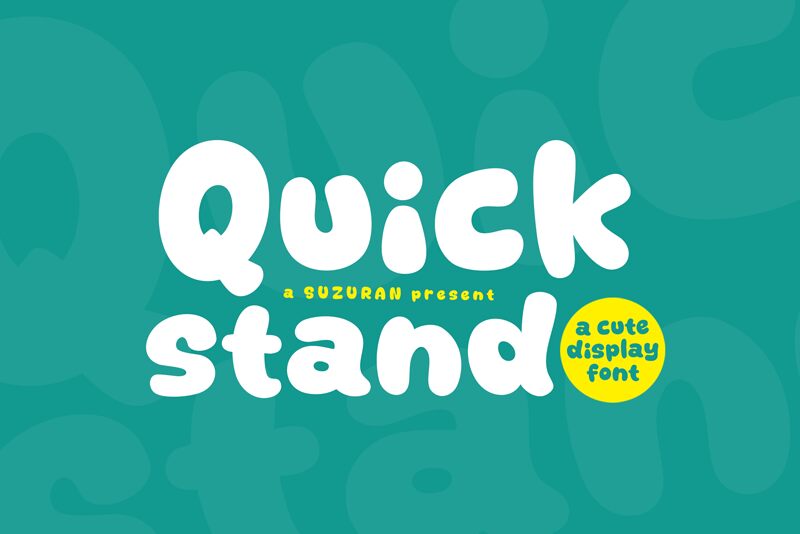
Quick Stand font is an informal, friendly cartoon font by Khurasan with a rounded and bubbly appearance. This modern whimsical typeface is approachable, fun, and engaging. Each character has a casual look with simple lines that make this font as a whole easy to read and ideal for attention-grabbing headline text. Free font for personal use, this font combines unusual yet harmonious characters that form a style that can be described as cool and relaxed, which is the identity you communicate to your target audience.
Quick Stand will beautifully apply to social media posts, posters, flyers, invitation cards, websites, branding, promotional items, headlined magazines, and more. Make your streetwear designs, Young Adult books, and stationery items more eye-catching with Quick Stand. Any project that targets a youthful audience or for which you would like to incorporate elements of fun and excitement will benefit from this beautiful font.